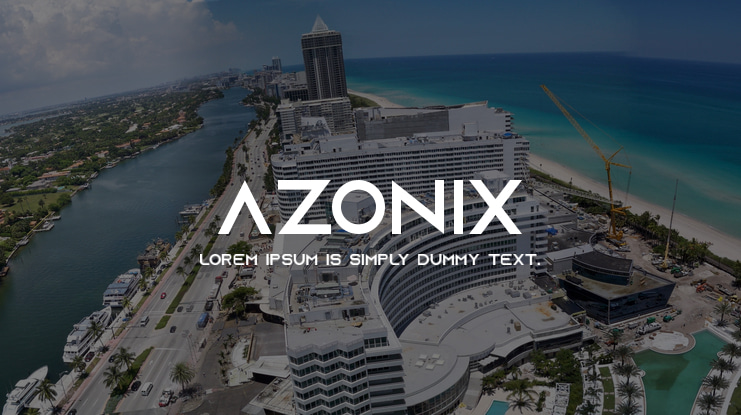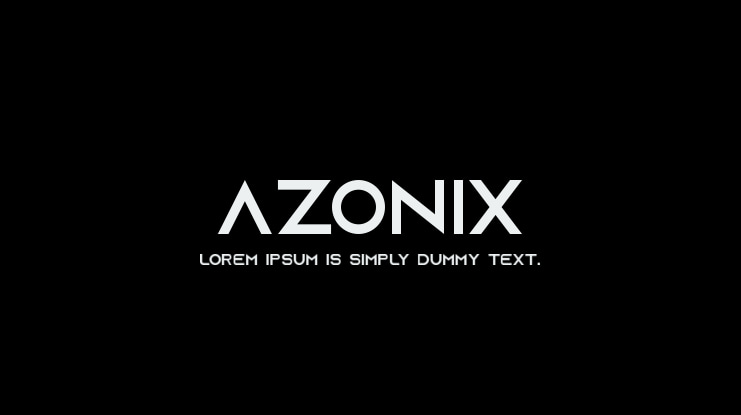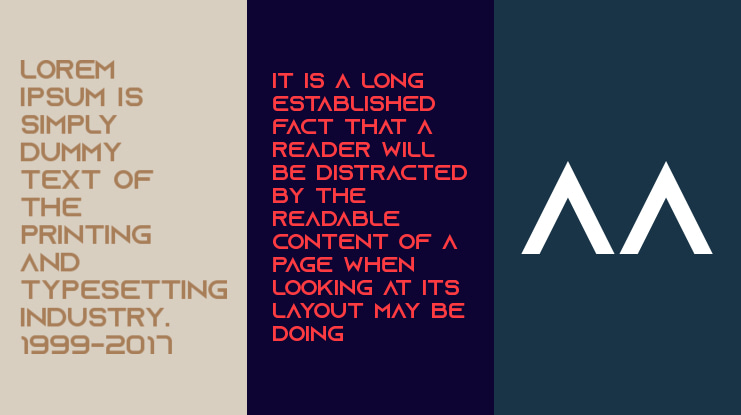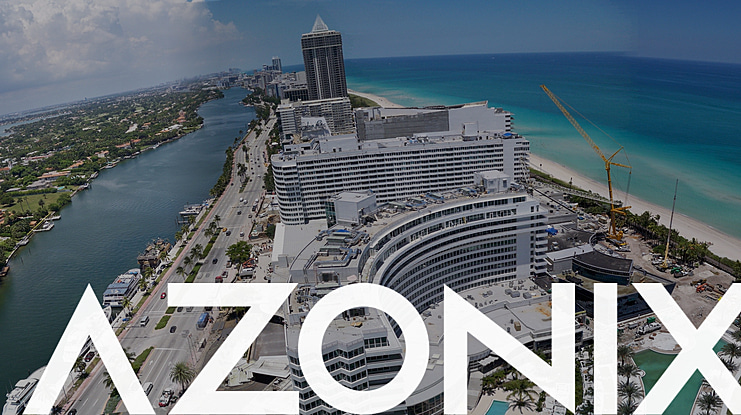
Azonix Font
Azonix is a modern sans-serif typeface. This typeface consists of bold geometric upper case letters, numbers and punctuation (symbols). Enjoy the free font!